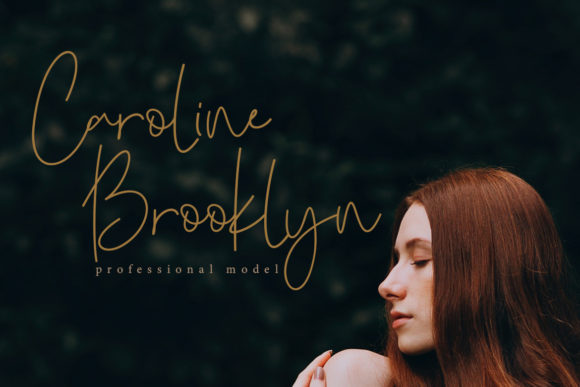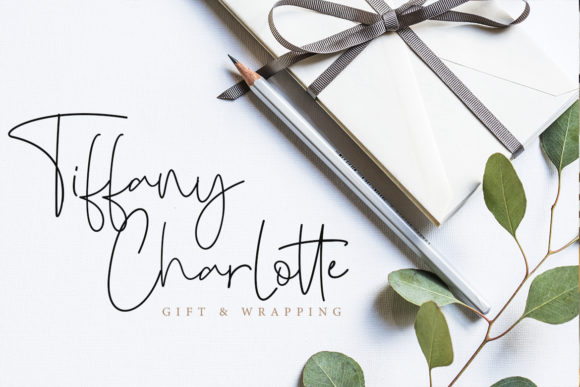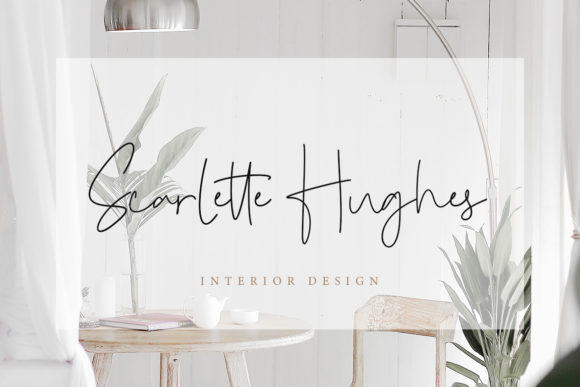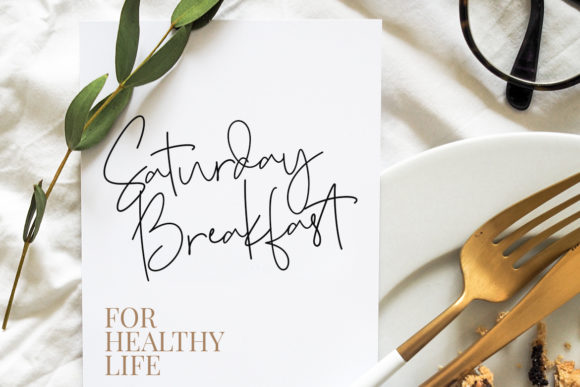
Introduction to Delycost Font
Have you ever been stuck on a creative project, trying to find the perfect font to elevate your design? The frustration of scrolling through countless options, only to settle for something that just doesn’t quite fit, is all too familiar for designers.
But what if I told you there’s a game-changing solution? Enter the Delycost Font, an authentic and unique handwritten font with a bold feel that’s sure to turn any design project into a standout. With its high-quality design and transparent background, this font is a valuable resource for any creative project.
Whether you’re a seasoned pro or just starting out, the Delycost Font is an essential download for anyone looking to take their designs to the next level. In this article, we’ll dive deeper into what makes this font so special and why it’s a must-have for any design enthusiast.
Key Features of Delycost Font
- High-quality font suitable for creative projects, offering a unique and elegant design.
- Features a transparent background, allowing for seamless integration with various design elements and backgrounds.
- Designed with precision, the font offers a high resolution of 300 DPI, suitable for print and digital applications.
- The font size is scalable, making it suitable for a wide range of creative projects, from small logos to large-scale designs.
- Perfect for designers looking for a high-quality, free design resource to elevate their creative project.
Honest Review: Delycost Font
I recently had the chance to work with the Delycost Font, and I’m excited to share my honest review with fellow designers. As a creative professional, I’m always on the lookout for high-quality design resources that can elevate my projects.
- The Delycost Font offers a clean and modern aesthetic that’s perfect for a variety of creative projects.
- The transparent background makes it easy to customize and integrate with other design elements.
- The high-quality design ensures that the font looks great in both digital and print formats.
- The Delycost Font is a relatively new release, and it’s not as extensive as some other font families.
- The font only includes a limited number of weights and styles, which may not be ideal for designers who require a wider range of options.
Overall, I’m impressed with the Delycost Font, and I think it’s a great addition to any designer’s toolkit. While it may have some limitations, the quality and versatility make it a solid choice for creative projects. Whether you’re working on a freelance project or a large-scale design initiative, the Delycost Font is definitely worth checking out.
Tips for Getting the Most Out of Delycost Font
For a high-quality design, use Delycost Font in combination with a transparent background to create a striking visual effect.
Experiment with different font sizes and colors to find the perfect balance for your creative project.
Use Delycost Font as a design resource to add a professional touch to your presentations, documents, and other design projects.
Delycost Font is ideal for a variety of design applications, including:
1. Creative project presentations